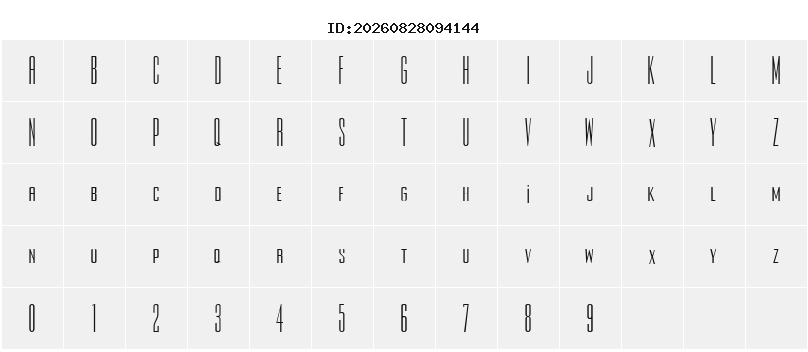
TrSah Rothman Preview
• Font Name: TrSah Rothman
• Font Style: Plain
• Full Font Name: TrSah Rothman Plain
• PostScript Name: TrSah Rothman Plain
About TrSah Rothman.ttf
TrSah Rothman.ttf is a modern, elegant sans-serif font designed for ultimate readability and visual harmony. Perfect for branding, headlines, web design, and print materials.